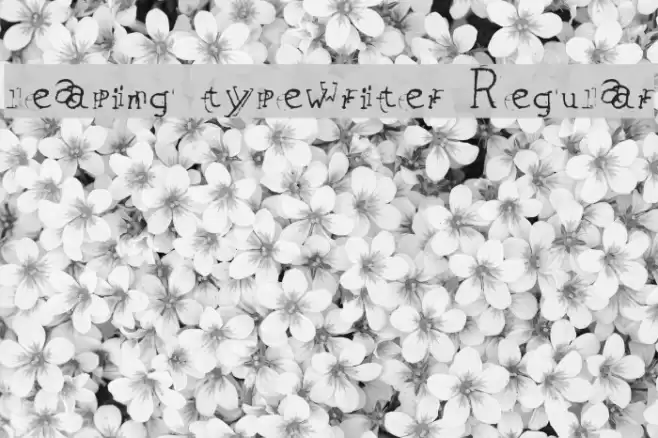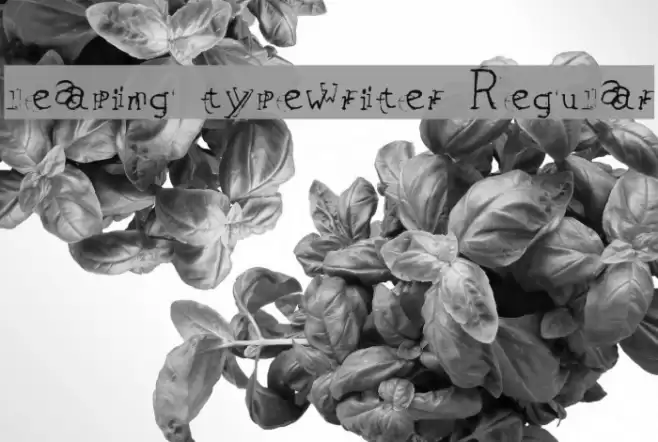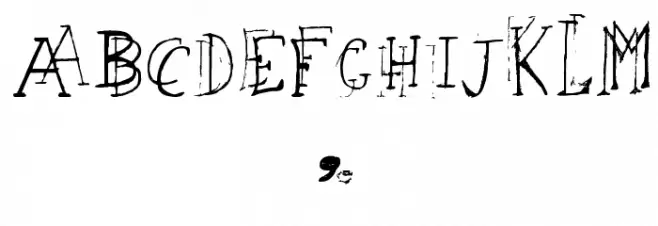
leaping typewriter Regular Font
leaping typewriter Regular Description
This font exhibits a quirky, distressed typewriter style with a playful and uneven baseline. Each character appears as if it has been manually typed with varying pressure, creating a unique, vintage aesthetic. The letters are slightly irregular in shape, adding to the charm and character of the font. The uppercase and lowercase letters maintain a consistent style, with some characters featuring exaggerated serifs and others with more subtle strokes. The numbers and special characters follow the same distressed and uneven pattern, making them blend seamlessly with the alphabet. This font is ideal for projects that require a touch of nostalgia or a handcrafted feel.
A quirky, distressed typewriter-style font with a vintage aesthetic from Uncategorized fonts.
- Proposed Projects: Ideal for vintage-themed designs, scrapbooking, creative writing projects, and artistic posters.
- Overall Style: Vintage
- Use Case: Headlines, Artistic projects, Posters